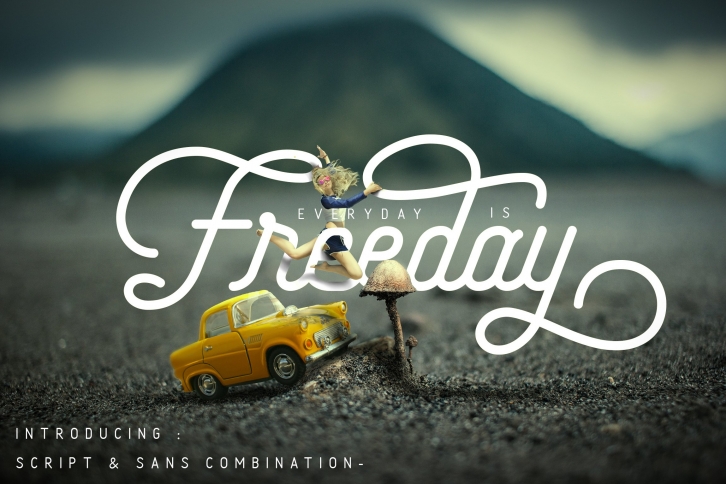
Freeday Font is a modern font with more featured and made with love :). Freeday Font have a complete glyphs, this font suitable for wedding invitation, greeting cards, T-Shirt, Logo or any design that you create. comes with a complete set of standard characters, Alternates, Ligature Variation, Punctuation & have extra textured version for your design and many more.
The Features of this fonts is:
• UPPERCASE and lowercase
• Numeral and punctuation
• Stylistic Set01 - Stylistic Set21 - Happy Design :)
• Stylistic Alternates and Contextual Alternates
• Textured version & Rough version
• Standart Ligatures and Discretionary Ligature
• Fractions
• Initial and Terminal Forms
• Swash
• Smallcaps Numeral